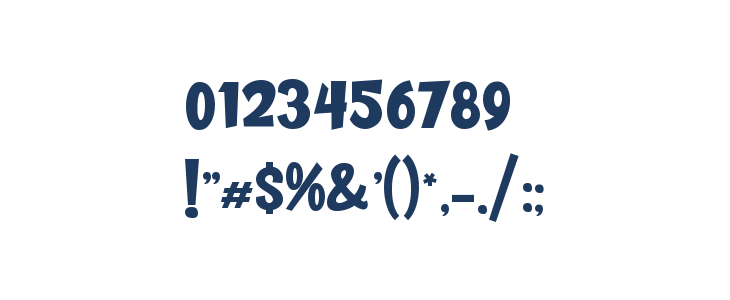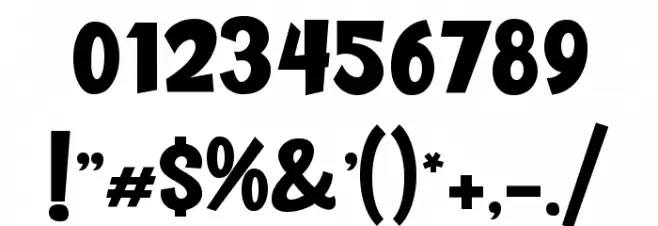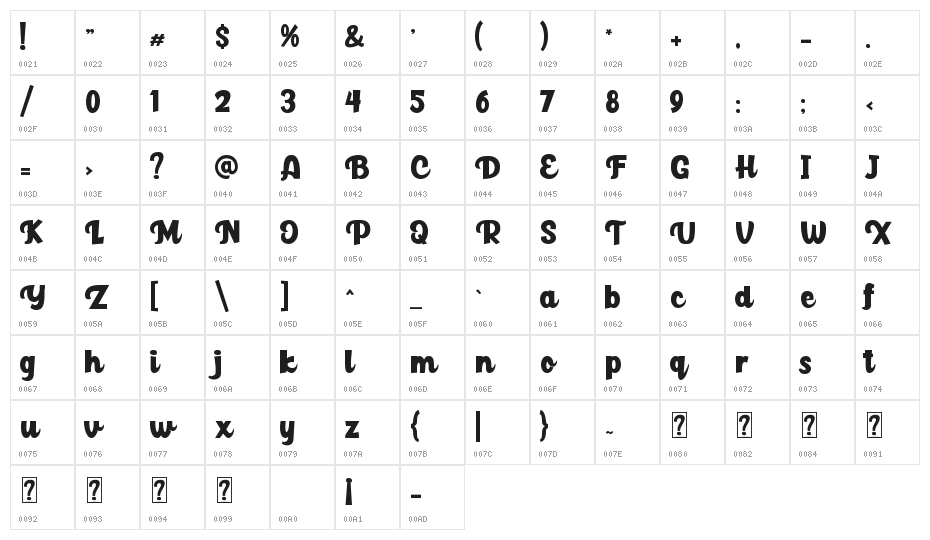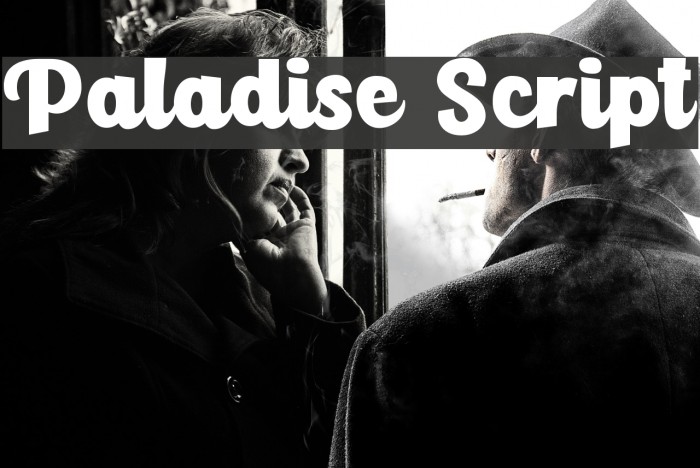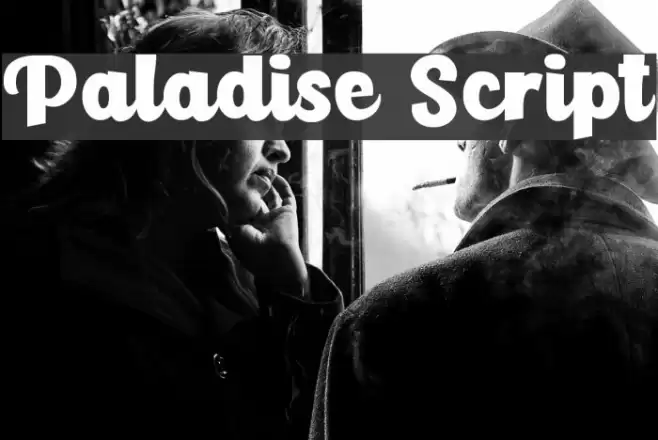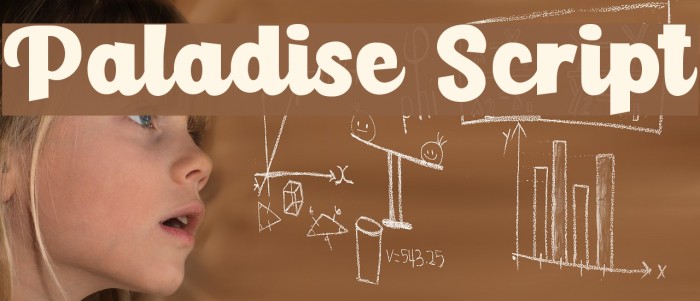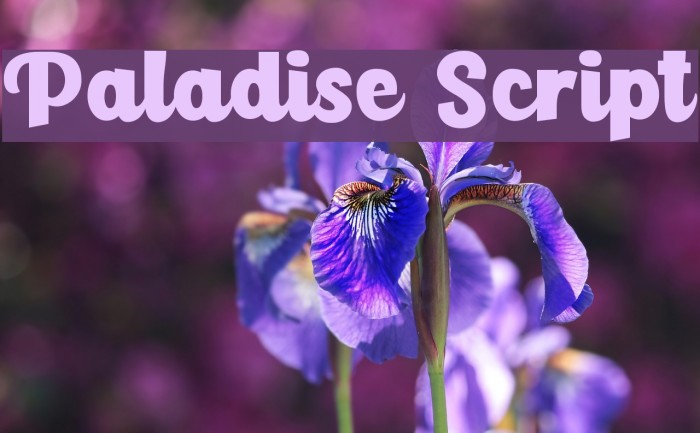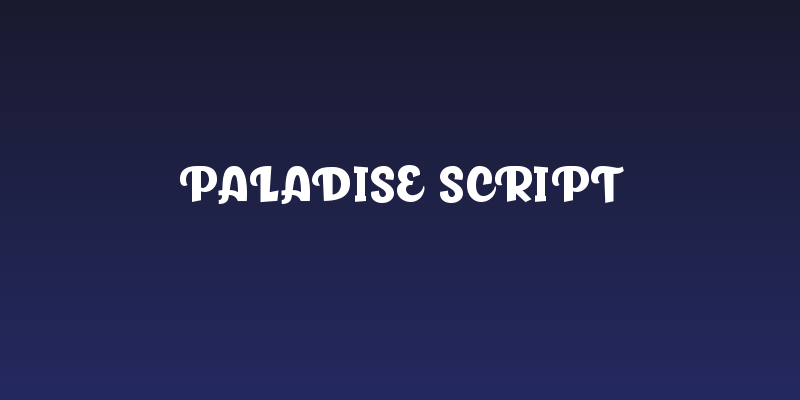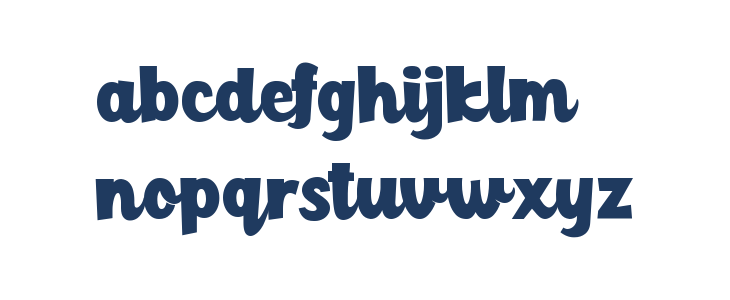
Paladise Script Font
Paladise Script Description
This font features a bold and playful script style, characterized by its thick strokes and smooth curves. The uppercase letters exhibit a whimsical flair with exaggerated serifs and rounded edges, while the lowercase letters maintain a consistent flow, enhancing readability. The numerals are robust and align well with the overall design, making them suitable for various applications. Special characters are crafted with the same attention to detail, ensuring they blend seamlessly with the alphabet. This font's lively and dynamic appearance makes it ideal for creative projects.
| Proposed Projects | Ideal for branding, invitations, posters, and creative design projects that require a lively and engaging typeface. |